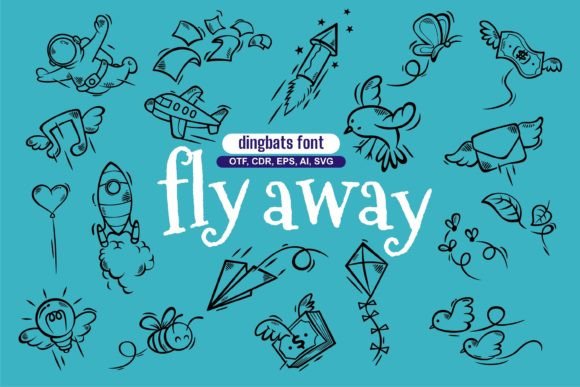
Journey through the enchanting world of Fly Away Font, a captivating dingbats creation by onoborgol. A font that invites you to soar beyond the ordinary, Fly Away Font is a visual symphony that harmonizes with every corner of your imagination.
This font is not just a design; it's an experience. Its intricate strokes and playful shapes dance together, creating an enchanting atmosphere that breathes life into your words. Whether you're crafting captivating quote posters, whimsical invitations, or vibrant social media graphics, Fly Away Font adds a touch of magic that leaves a lasting impression.
Unleash your creativity and let your imagination take flight. With Fly Away Font, every letter becomes a brushstroke that paints stories, captivates hearts, and ignites conversations. Its versatility allows you to weave enchanting tales across a diverse range of projects, from elegant wedding invitations to playful children's books.
Immerse yourself in a world where elegance meets whimsy, where every word transforms into a work of art. Fly Away Font is more than just a font; it's a gateway to a creative realm where the ordinary becomes extraordinary. Let your creations take flight and leave an indelible mark on the world, one captivating design at a time.